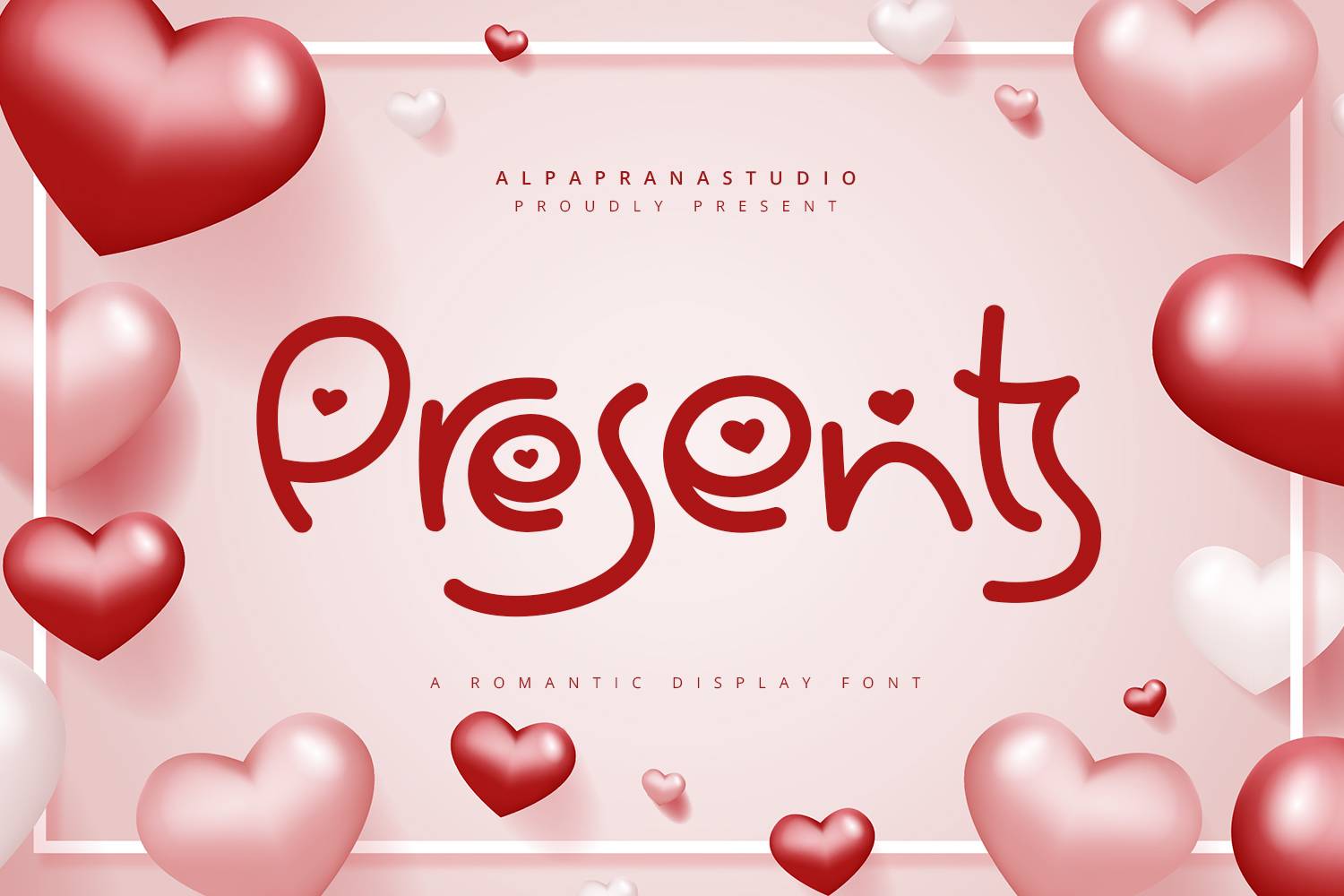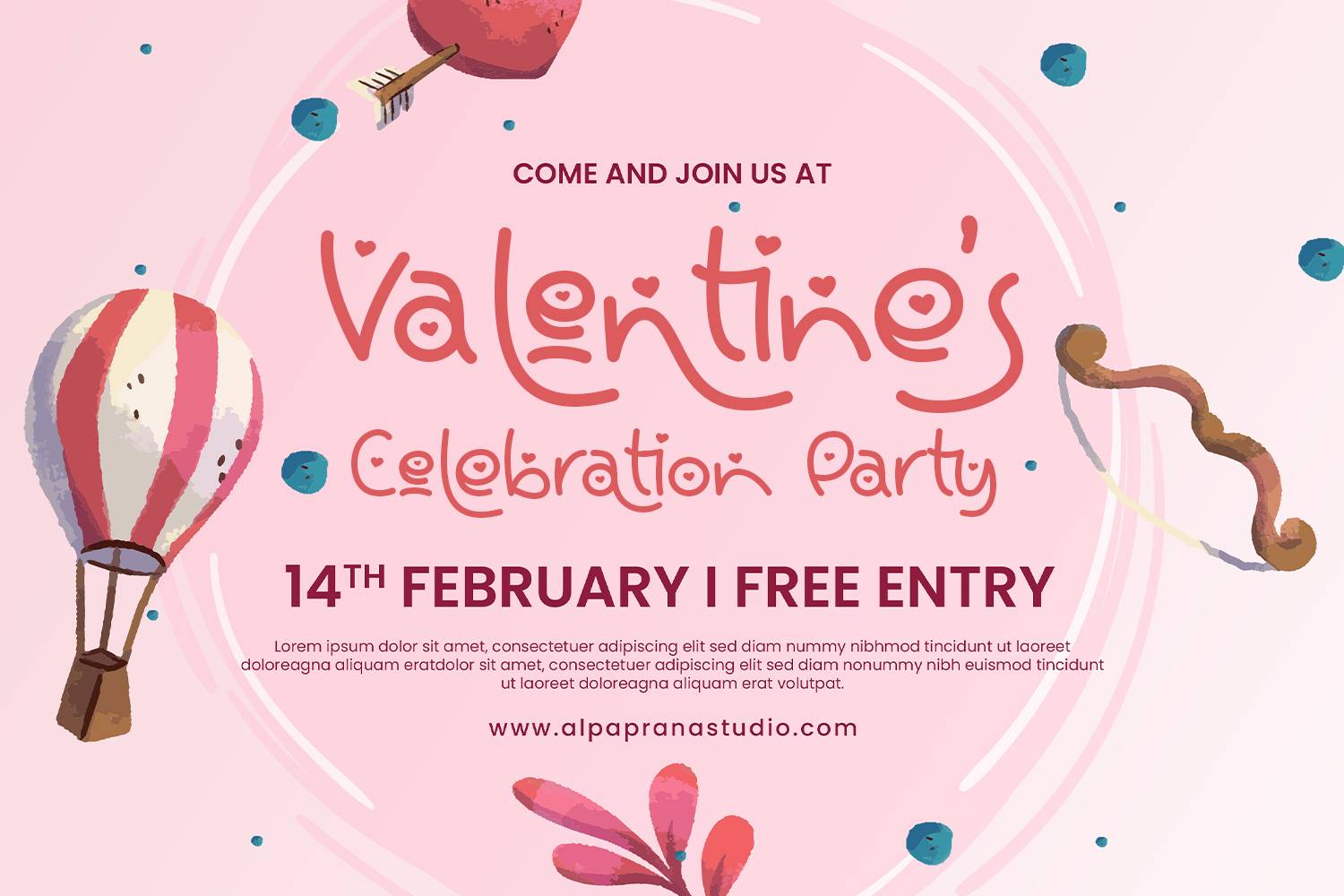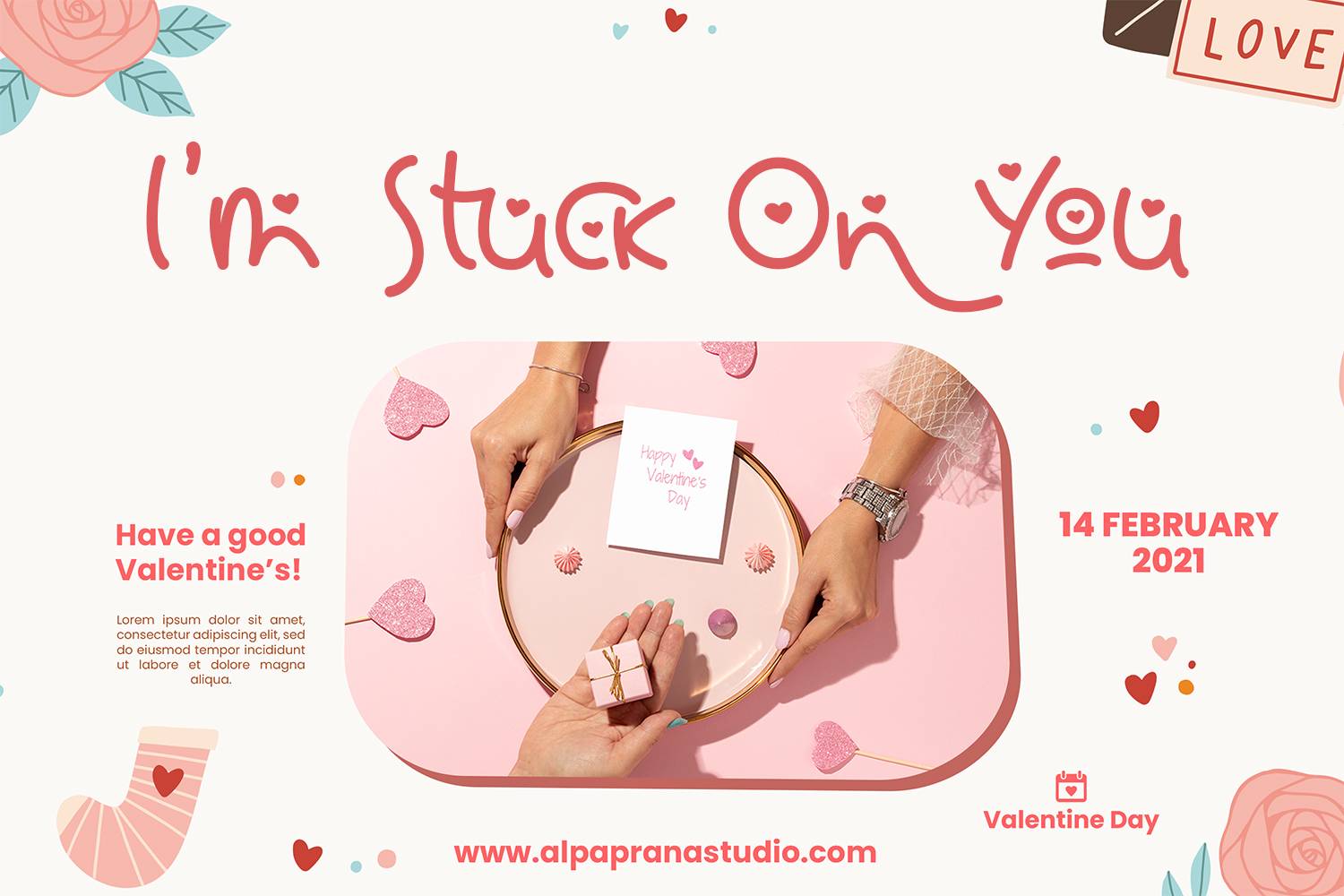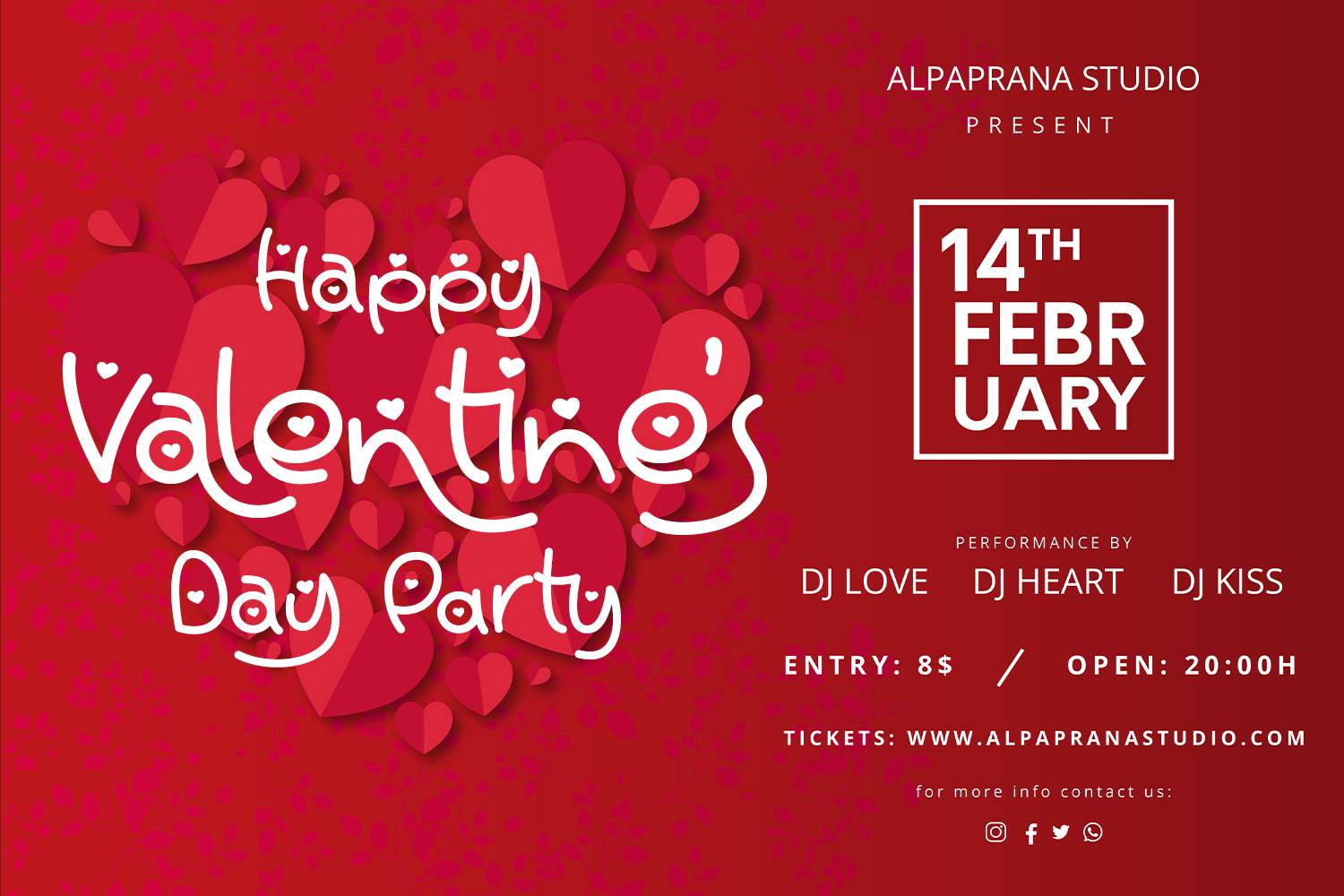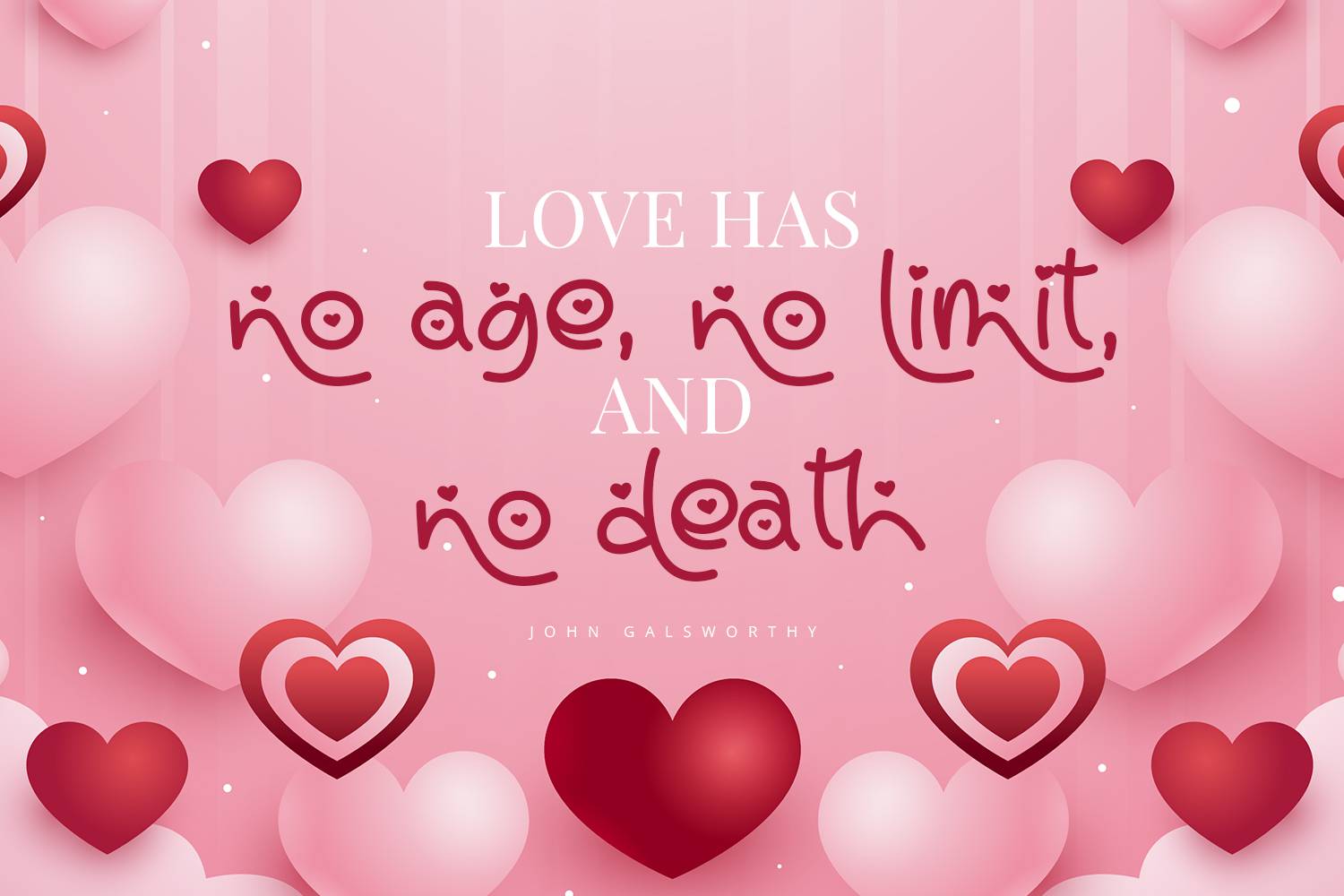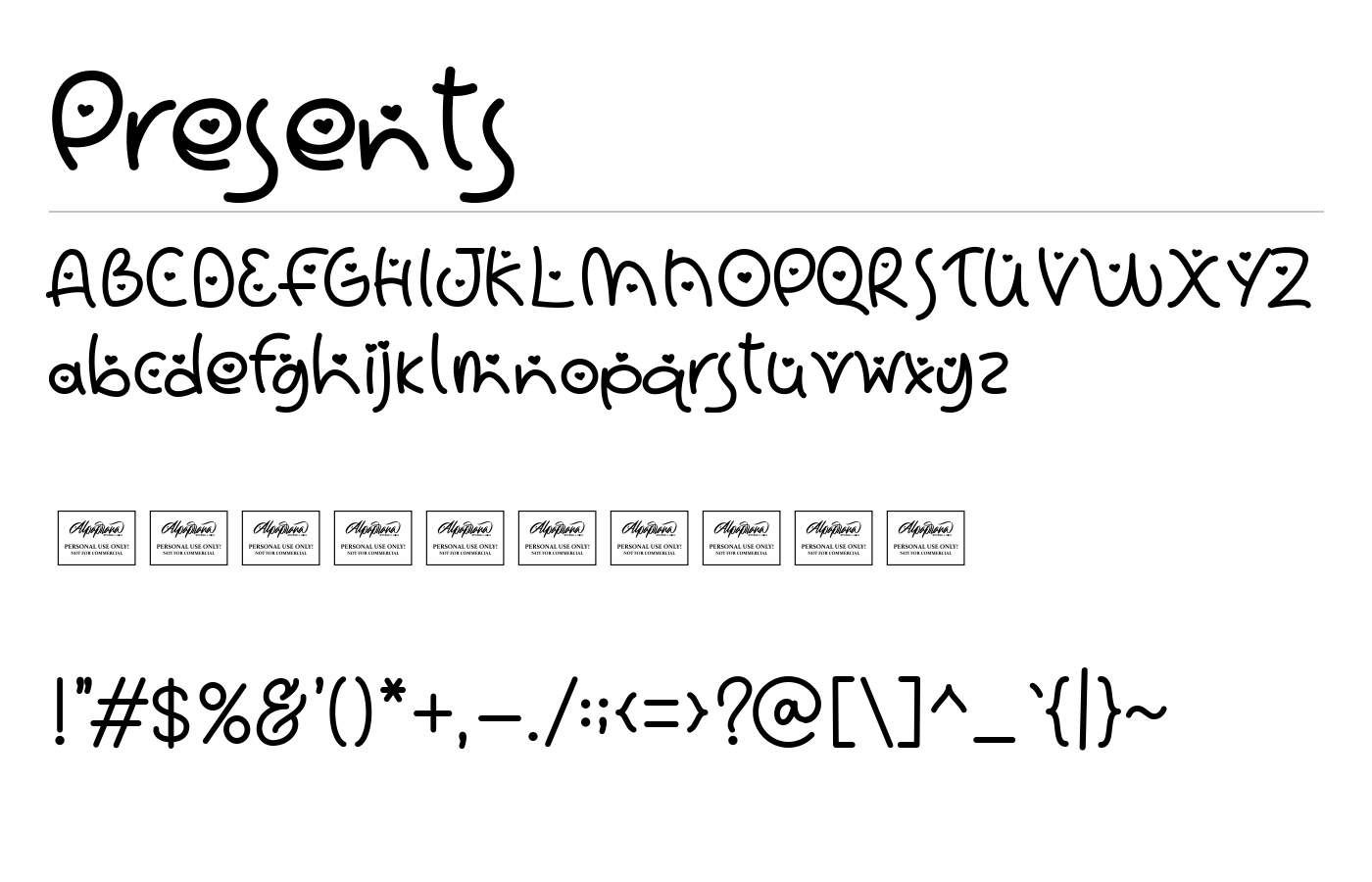
Presents Font is a playful, handwritten sans serif typeface characterized by its rounded, whimsical letterforms and charming heart-shaped dots decorating the i’s and other letters. Its casual, light weight and airy spacing create a friendly and approachable vibe, making it ideal for designs that want to convey warmth, fun, and creativity. This font works wonderfully for invitations, children’s products, greeting cards, and any project that benefits from a personal, lighthearted touch.
Presents Font
About Presents Font